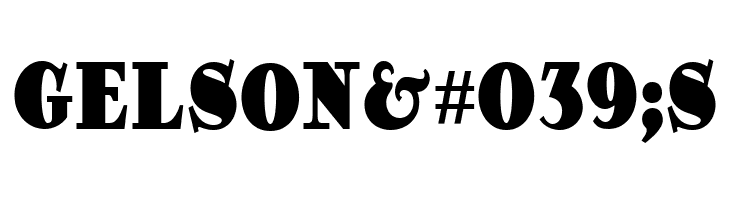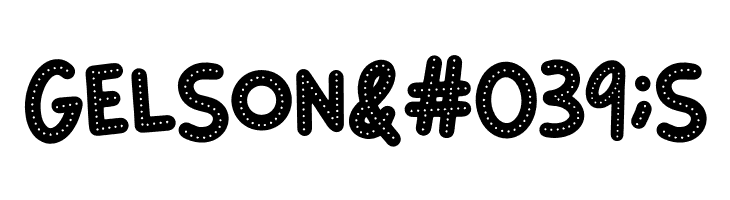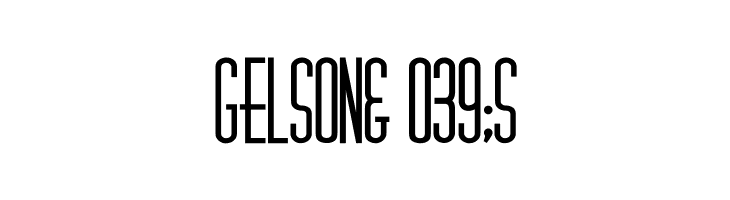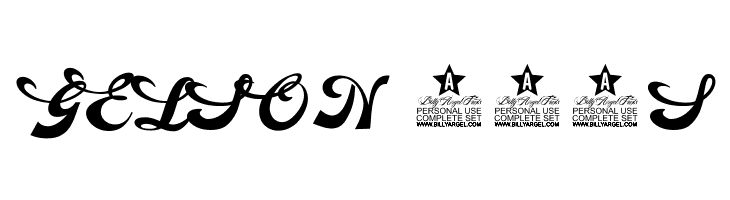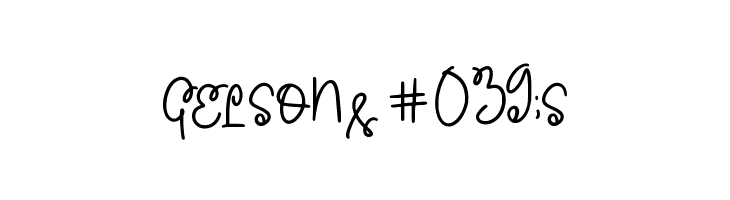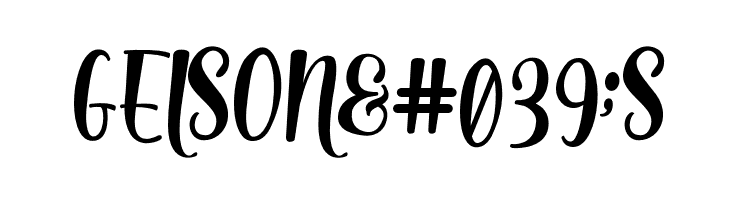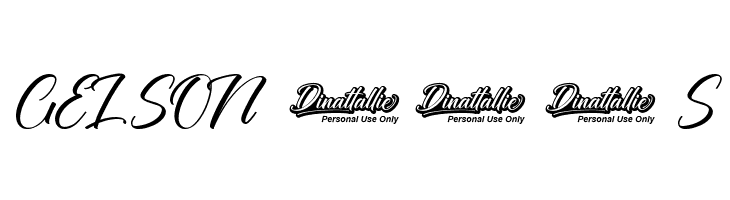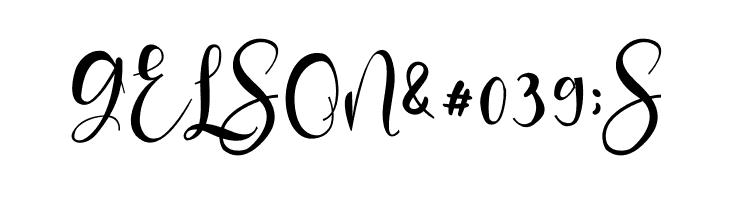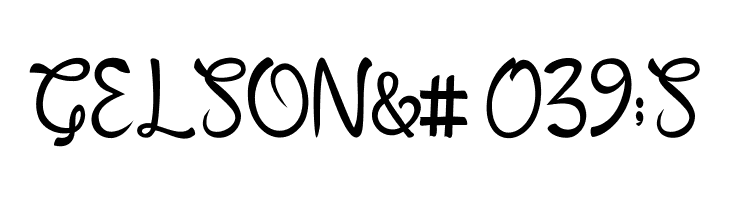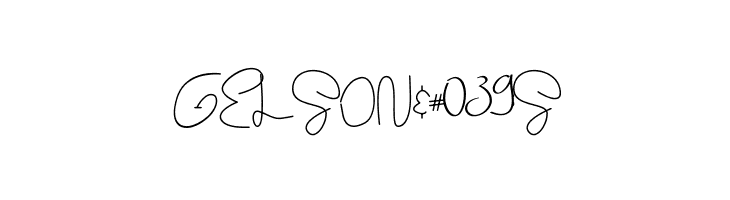
A sophisticated serif font with sharp serifs and a blend of classic and modern elements.
A bold, dynamic serif typeface with angular serifs and strong presence.
A graceful script font with elegant, flowing lines and a handwritten style.
A flowing, cursive script font with elegant, interconnected strokes.
A playful, dynamic handwritten font with fluid, whimsical strokes.
A bold, hand-drawn font with a playful and dynamic style.
A dynamic, cursive-like font with flowing strokes and a sense of movement.
A dynamic and expressive script font with fluid, elegant letterforms.
A bold, decorative font with vintage flair and ornate details.
A bold, decorative font with intricate flourishes, perfect for elegant and eye-catching designs.
A bold, elegant script font with flowing, cursive design and dramatic flair.
An elegant, flowing script font with sophisticated curves and flourishes.
A whimsical, hand-drawn font with thin, flowing lines and a playful aesthetic.
A playful, hand-drawn script font with lively, interconnected strokes.
A bold, geometric font with rounded edges and a modern style.
A bold, rounded font with a retro diner aesthetic.
A bold, italic font with a modern, geometric style and rounded edges.
A bold, condensed font with tall, narrow characters and a modern aesthetic.
A tall, narrow font with a modern and sleek design.
A bold, condensed font with tall, striking letterforms and a vintage-modern appeal.
A sleek, elongated font with narrow, minimalistic letterforms.
A modern, ultra-thin font with elongated, narrow characters.
A playful, bold font with dotted outlines, perfect for lively and engaging designs.
A bold, vintage-style font with playful serifs and high contrast.
A decorative dingbat font with whimsical and thematic icons.
A decorative font with Halloween-themed icons like pumpkins and witches.
A bold, vintage-style font with strong serifs and dynamic presence.